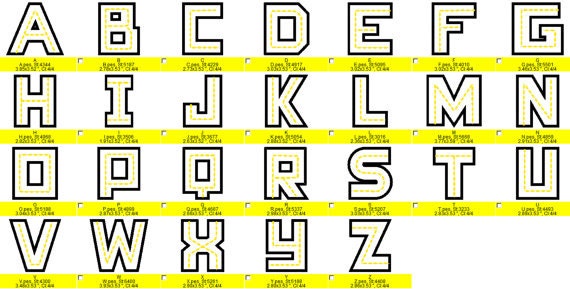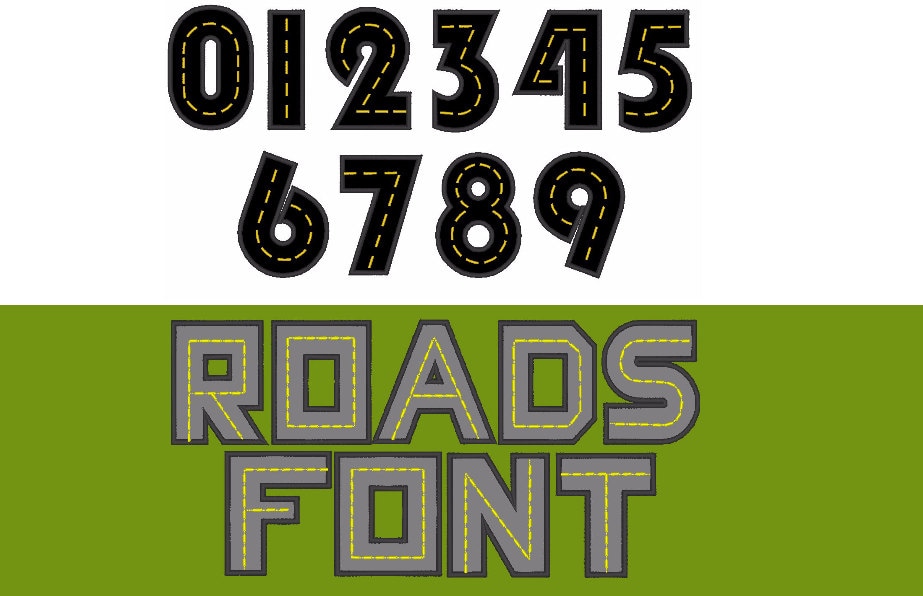
Road Font with wide satin stitch whole alphabet and numbers, kids boy name monogram machine embroidery applique designs 3, 4, 5, 6 inches
Letters from A up to Z
and Numbers 0 - 9